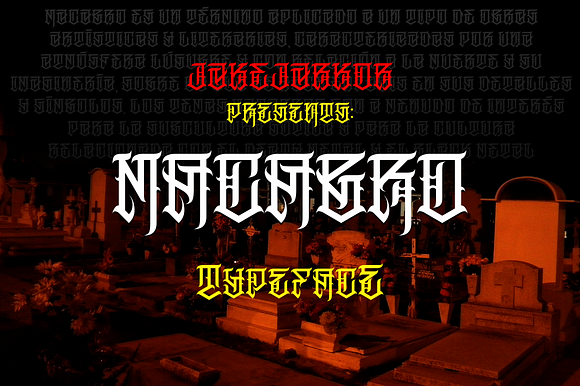
MACABRO Font
This dark typeface is perfect for horror movie titles, Halloween designs, gothic branding, metal band logos, haunted house signage, thriller book covers, dark gaming graphics, spooky merchandise, and atmospheric design projects.
What makes this font exciting is its haunting gothic character combined with menacing visual impact, offering designers a sinister typeface that captures supernatural terror while delivering spine-chilling atmosphere and unforgettable macabre sophistication.
The MACABRO font family includes regular, bold, distressed, shadow, and blood-drip variations, providing complete horror design solutions for terrifying visual experiences.
Whether you're creating spine-tingling entertainment experiences or developing dark atmospheric brands, MACABRO Font Free Download brings unmatched horror aesthetics and supernatural presence to every application. This chilling typeface combines gothic horror traditions with contemporary design techniques, creating letterforms that evoke fear and fascination simultaneously. The font's ominous construction and threatening details make it ideal for brands requiring immediate dark recognition.
MACABRO Font features carefully crafted menacing elements with authentic gothic styling that conveys genuine supernatural dread. Each character has been engineered for maximum psychological impact, with strategically placed distressing effects and shadow details that enhance the terrifying aesthetic. The font's dark atmosphere creates instant associations with mystery, horror, and otherworldly experiences.
Professional designers choose MACABRO Font for projects demanding authentic horror credibility and supernatural atmosphere. Its gothic qualities work exceptionally well for entertainment venues, seasonal events, and dark fantasy brands. The font's versatile horror variations allow designers to control the terror intensity, from subtle gothic elegance to extreme haunting effects.
The complete MACABRO Font package offers extensive horror-themed ornaments and decorative elements that enhance the macabre aesthetic. Advanced layering capabilities allow designers to create complex supernatural effects by combining different font styles. This comprehensive horror toolkit ensures authentic results whether you're creating theatrical posters, product packaging, or immersive digital experiences.